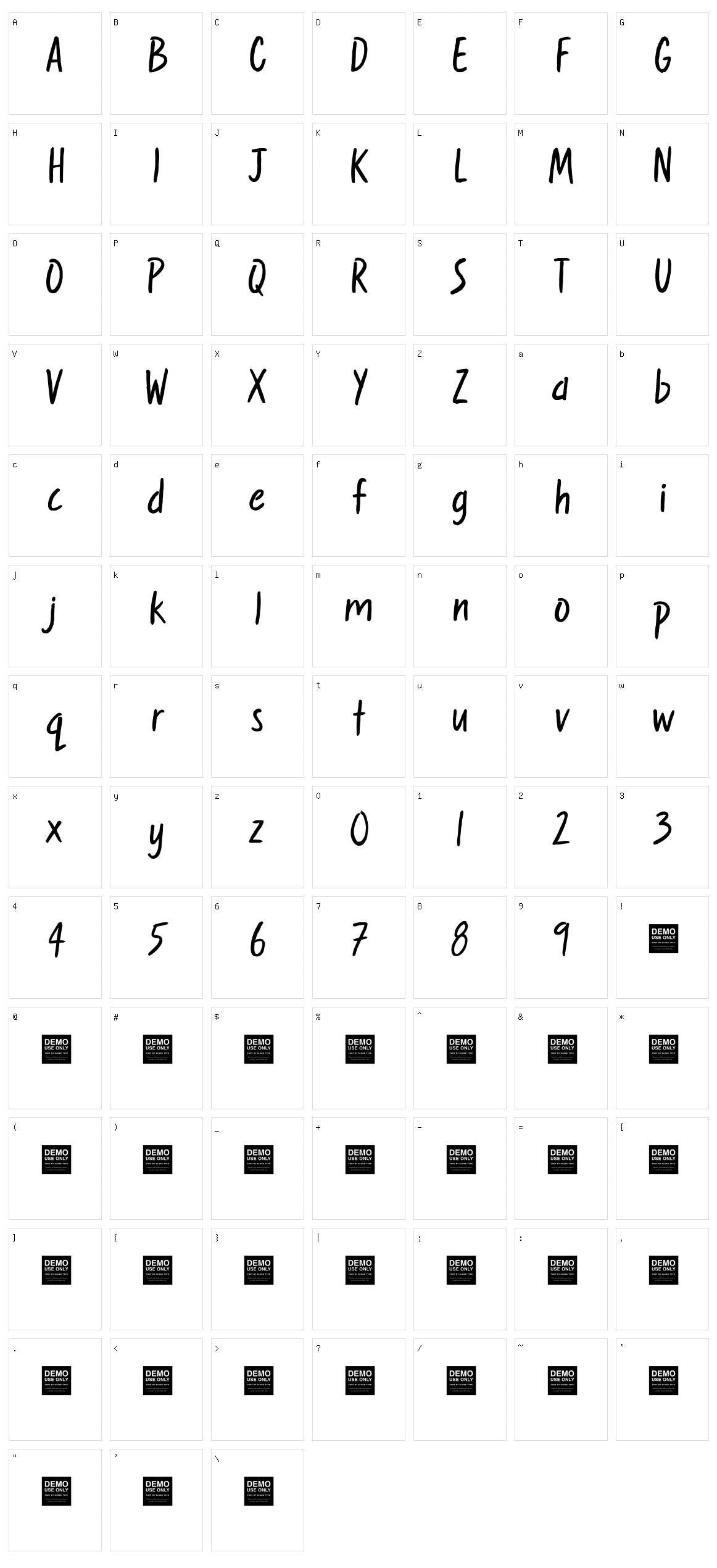
The free font Sweet Nothings is carefully designed by BLKBK Fonts, showcasing a thoughtful balance of creativity and usability and falls under the Script font style. When you download the ZIP file, it contains only 49.77 KB of font files, making it lightweight and quick to download. Please review the license details below to understand permitted usage and distribution rights. If license information is not available, we recommend using this font for personal projects only or contacting the author directly for commercial usage permissions.